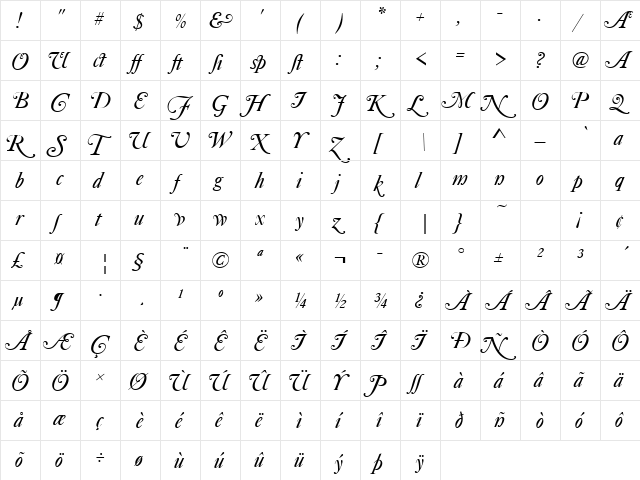
CaslonNo540SwaAltD Italic
Design Context for CaslonNo540SwaAltD Typeface
CaslonNo540SwaAltD is a composed and adaptable typeface that performs quietly and consistently across a wide range of design contexts. The dynamic lean of this cut emphasises speed and emphasis in any layout.
Pro Tip: Try CaslonNo540SwaAltD for annotation and caption copy alongside an upright companion — the contrast in angle creates a dynamic but ordered typographic system.